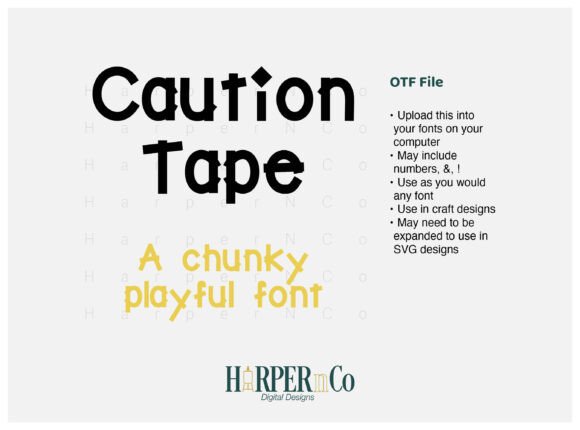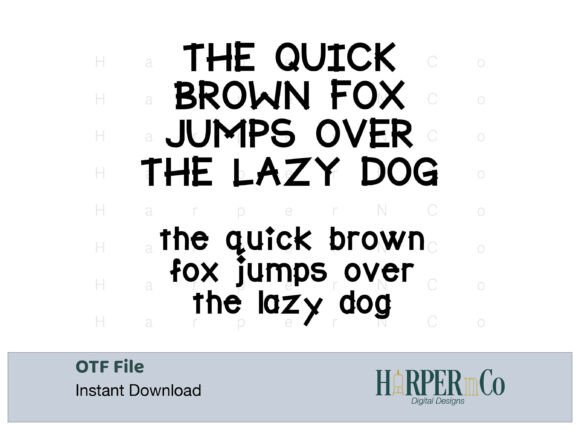
Introducing Caution Tape Font: The Bold and Playful Typeface for Attention-Grabbing Designs
Are you tired of using the same old fonts for your designs? Look no further than Caution Tape Font, a bold and chunky typeface that’s sure to add a fun and energetic touch to any project. With its thick letters and playful feel, Caution Tape Font is perfect for designers and crafters who want to make a statement.
The Characteristics of Caution Tape Font
Caution Tape Font is a bold, sans-serif font that’s designed to grab attention. Its thick letters make it perfect for use in posters, signs, and other creative designs where you want to make a big impact. The font has a playful feel that’s reminiscent of caution tape, hence its name. It’s a fun and energetic typeface that’s sure to add a touch of personality to any project.
Why Use Caution Tape Font?
So why should you use Caution Tape Font for your designs? Here are just a few reasons:
• Attention-grabbing: The bold and chunky letters of Caution Tape Font make it perfect for grabbing attention. Whether you’re designing a poster, sign, or social media graphic, this font is sure to stop people in their tracks.
• Fun and energetic: Caution Tape Font has a playful feel that’s perfect for adding a fun and energetic touch to your designs. It’s a great way to add some personality to your project and make it more engaging.
• Versatile: Caution Tape Font is a versatile typeface that can be used in a wide range of projects, from posters and signs to social media graphics and more.
How to Use Caution Tape Font
Caution Tape Font is easy to use and can be incorporated into a wide range of projects. Here are a few ideas to get you started:
• Posters: Use Caution Tape Font to create eye-catching posters for events, promotions, or announcements.
• Signs: Caution Tape Font is perfect for creating signs that need to grab attention, such as warning signs, directional signs, or informational signs.
• Social media graphics: Add a fun and energetic touch to your social media graphics with Caution Tape Font. It’s a great way to make your posts stand out and engage your audience.
• Crafting projects: Caution Tape Font is also perfect for crafters who want to add a personal touch to their projects. Use it to create custom titles, headings, or labels for your crafts.
Tips for Using Caution Tape Font
Here are a few tips for using Caution Tape Font effectively:
• Use it sparingly: While Caution Tape Font is bold and attention-grabbing, it can be overwhelming if used too much. Use it sparingly to add emphasis to key words or phrases.
• Pair it with other fonts: Caution Tape Font can be paired with other fonts to create a unique and interesting look. Try pairing it with a sans-serif font for a modern look or a script font for a more playful feel.
• Experiment with colors: Caution Tape Font looks great in a wide range of colors. Experiment with different colors to find the one that works best for your project.
Caution Tape Font is a bold, chunky typeface that’s perfect for designers and crafters who want to add a fun and energetic touch to their projects. With its thick letters and playful feel, it’s sure to grab attention and make a statement. Whether you’re designing posters, signs, social media graphics, or crafting projects, Caution Tape Font is a great choice. So why not give it a try and see how it can add a touch of personality to your designs?